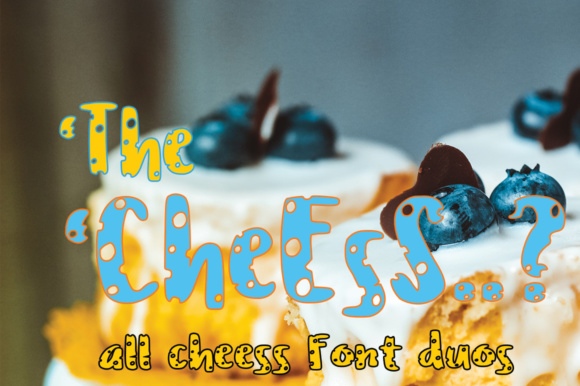
The Cheess Font
The Cheess Font is perfect for artisan cheese shop branding, gourmet food packaging, dairy farm signage, restaurant menu headers, organic food markets, specialty delicatessen identity, wine and cheese pairing materials, culinary school logos, farm-to-table campaigns, artisanal food festivals, cheese tasting events, and appetizing storytelling applications.
The Cheess Font is exciting because it embodies the artisanal craftsmanship and rustic elegance of traditional cheesemaking with handcrafted letterforms that seem aged like fine cheese in countryside cellars, perfectly capturing the warmth and authenticity that defines artisanal food culture and the timeless appeal of handmade culinary excellence.
The Cheess Font family includes artisanal variations: Regular, Bold, Light, Aged, Rustic, and Creamy styles, providing designers with a complete gourmet typography system to create appetizing compositions that celebrate the craft and tradition of artisanal food production and culinary heritage.
The font's lovingly crafted letterforms reflect the handmade quality and rustic charm that define artisanal food culture, with organic curves and traditional proportions that suggest aged oak, pastoral meadows, and the patient craftsmanship that transforms simple milk into extraordinary culinary treasures through time-honored techniques.
The Cheess Font excels in creating memorable brand experiences for businesses in artisanal food, gourmet dining, and culinary arts sectors. Its appetizing presence transforms ordinary communications into mouthwatering invitations that resonate with audiences seeking authentic food experiences and the genuine pleasure of traditional culinary craftsmanship.
Professional designers appreciate how The Cheess Font maintains authentic artisanal character while providing exceptional functionality across diverse culinary applications. The comprehensive style range ensures optimal performance from intimate specialty shop signage to grand food festival displays, maintaining consistent gourmet appeal and culinary credibility.
This remarkable typeface brings instant artisanal authenticity to culinary ventures and food-focused businesses. From specialty cheese shops to farm-to-table restaurants, The Cheess Font creates lasting impressions that communicate quality, tradition, and the irresistible appeal of handcrafted culinary excellence and artisanal food culture.